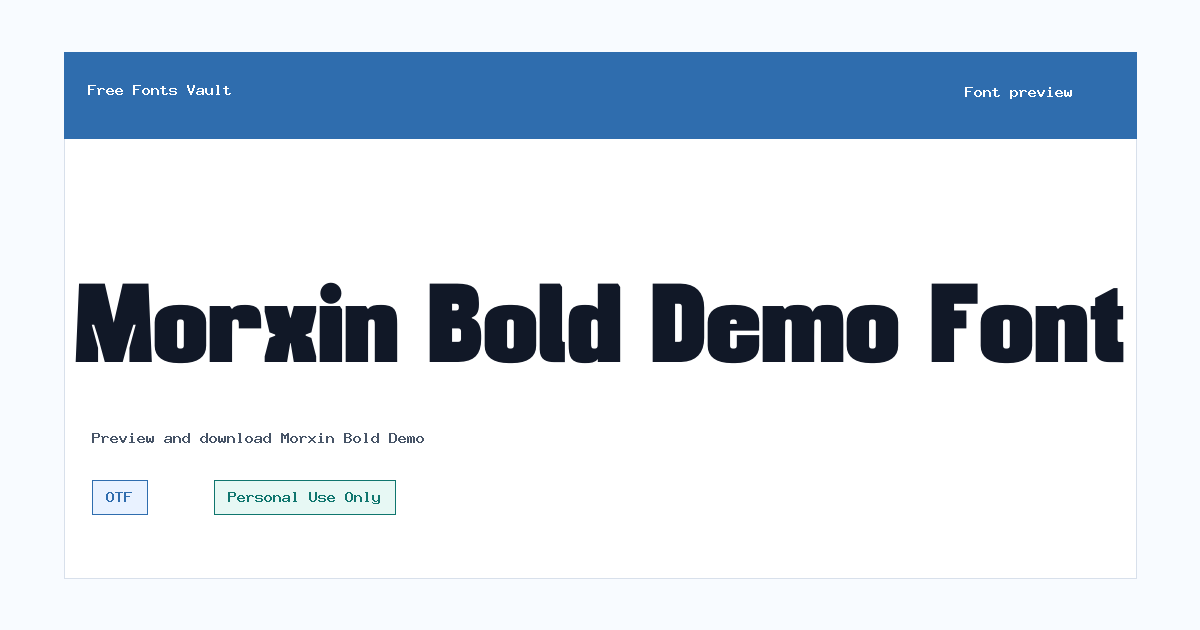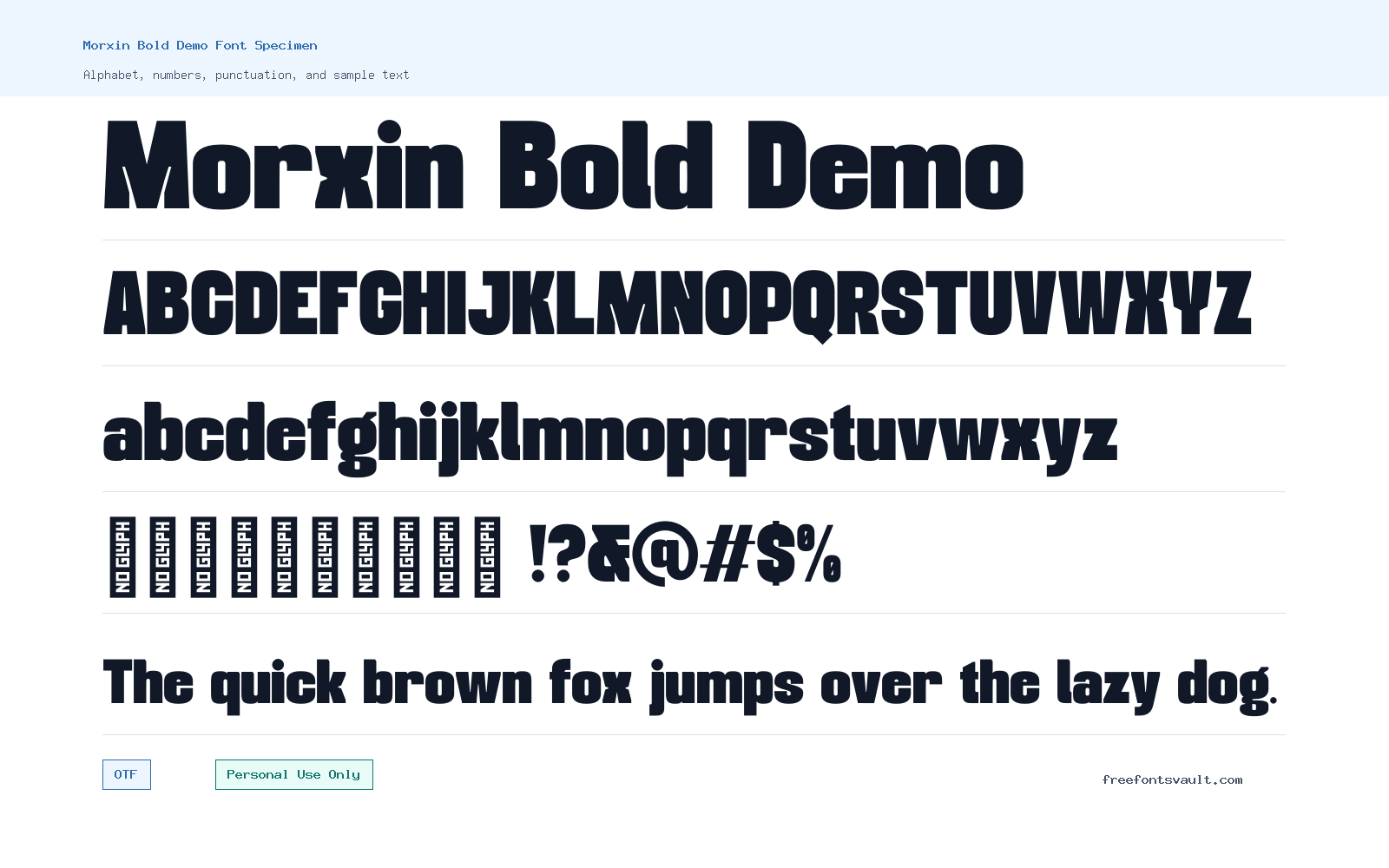
Morxin Bold Demo
Morxin Bold Demo font preview showing the family name
Morxin Bold Demo Font
Morxin Bold Demo font specimen showing alphabet, numbers, and sample text
Morxin Bold Demo font.
Morxin Bold Demo is a bold display font made for short, high-impact text. Its heavy weight gives headings, posters, logo drafts, and visual mockups a strong starting point, especially when you want a compact wordmark or title to feel firm and noticeable.
About Morxin Bold Demo
Morxin Bold Demo is a display-style font with a bold 700 weight and an OTF font file format. Because it is built around a strong, heavy style, it is better suited to short pieces of text than long reading paragraphs. Use it for titles, cover text, poster lines, packaging mockups, social graphics, and early logo concepts where the typography needs to carry visual weight. The name includes “Demo,” and the license information states Personal Use Only, so treat it as a test or non-commercial-use font unless you confirm broader rights from the designer or foundry.
For best results, try Morxin Bold Demo in the preview tool with the exact words you plan to use. Bold display fonts can look excellent in one-word marks, short headlines, badges, and uppercase-heavy layouts, but spacing may need adjustment when letters sit close together. Test it at the size you need, especially if you plan to use it in a web mockup or poster design. If the design feels too dense, add more letter spacing, increase line height, or pair it with a simple sans serif for body text. Keep Morxin Bold Demo for the main visual phrase and let a cleaner companion font handle descriptions, captions, navigation, or small print.
• Bold display style with a 700 weight for strong titles and short text
• Useful for previewing logo concepts, poster headlines, badges, and social media graphics
• Logo concepts and wordmark drafts
• Poster headlines and event graphics
• Album cover or cover-art mockups
• YouTube thumbnails and social media titles
• Packaging studies and label design concepts
• Large website hero headings in mockups
• Short quotes, badges, stickers, and display text
What kind of projects is Morxin Bold Demo best for?
It works best for short display text such as poster titles, logo drafts, cover art, badges, packaging concepts, and social media graphics.
Can I use Morxin Bold Demo for body text?
It is not the best choice for long paragraphs. Use it for large headings or short phrases, then pair it with a simpler, more readable font for body copy.
What should I pair with Morxin Bold Demo?
Pair it with a clean sans serif or neutral text font. Let Morxin Bold Demo handle the main title while the companion font handles supporting text, captions, and interface elements.